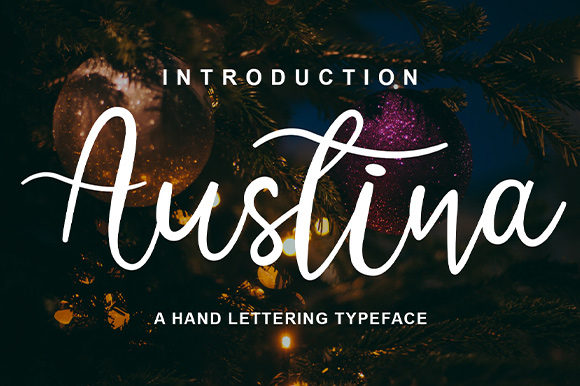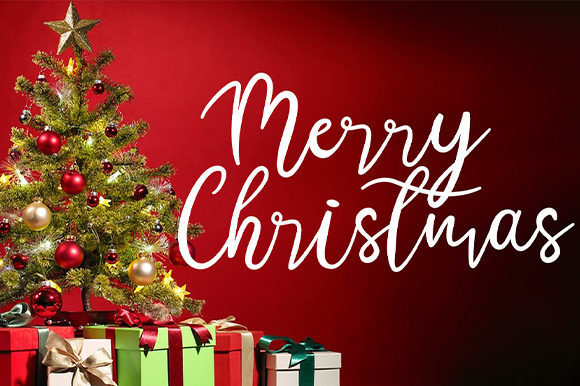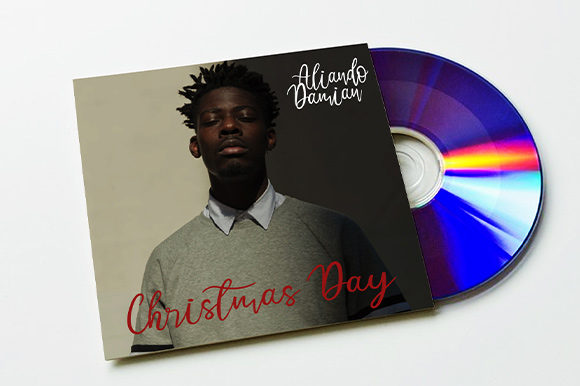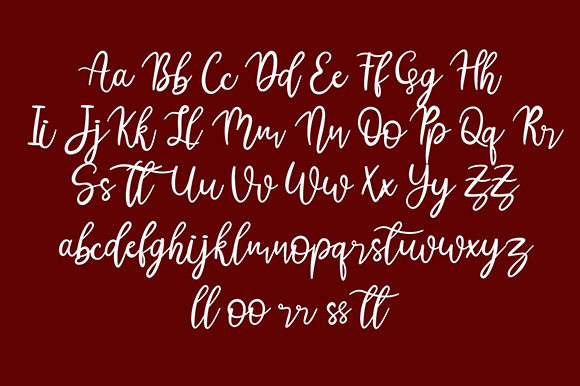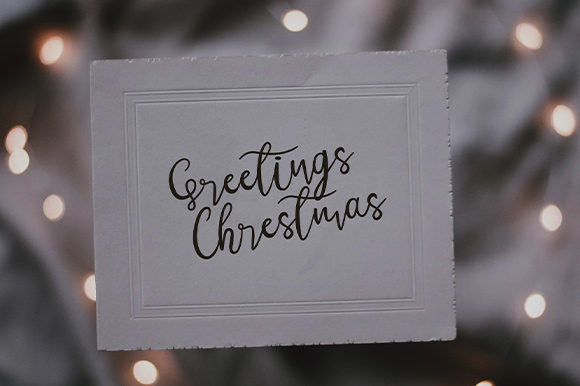
The Austina Font: A Charming Script to Elevate Your Designs
I’ll never forget the time I was working on a branding project for a boutique bakery, and I just couldn’t find the right font to capture their warm and inviting vibe. The client wanted something that felt elegant, yet approachable – and I was determined to deliver. That’s when I stumbled upon the Austina font, and it was love at first sight! 💕
With its incredibly smooth feel and charming script style, Austina instantly elevated my design game. I knew right then and there that I had to share this gem with fellow designers, crafters, and creative hobbyists. So, let’s dive into what makes Austina so special and how you can make the most of it in your projects.
An Honest Review of Austina Font
What I Love About Austina ✨
- 💫 Smooth and elegant script style that’s perfect for branding, packaging, and more
- 🎨 Versatile and adaptable to various design projects and styles
- 🔥 Stunning OpenType features and glyphs to add an extra creative touch
- ⚠️ Limited availability of stylistic alternates, which might not be a deal-breaker but is worth noting
- 🤔 Might not be the best fit for very formal or corporate designs, as it leans more towards elegant and creative
The Story Behind Austina Font
Austina font was designed with the intention of creating a beautiful, elegant script that would add a touch of sophistication to any design project. While the actual designer behind Austina remains a mystery, it’s clear that their goal was to craft a versatile and charming font that would inspire creativity and elevate designs.
| What type of designs is Austina font best suited for? | Austina font is perfect for branding, packaging, logos, and any design project that requires an elegant, yet approachable feel. |
| Does Austina font support OpenType features? | Yes, Austina font comes with a range of OpenType features and glyphs, which can be accessed through compatible design software. |
| Is Austina font suitable for body text? | While Austina font is highly legible, it’s primarily designed for headlines and titles. For body text, you may want to choose a more traditional serif or sans-serif font. |